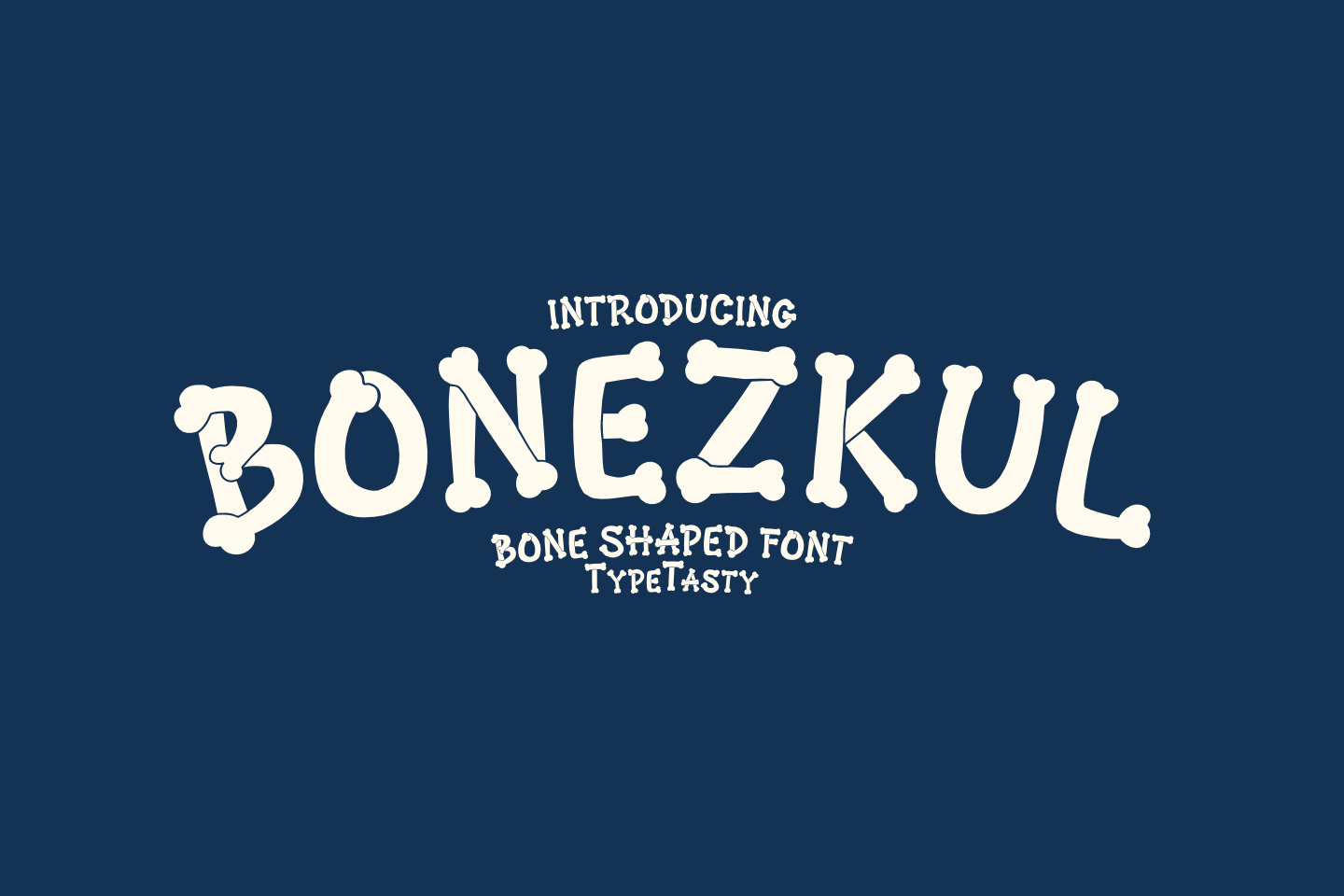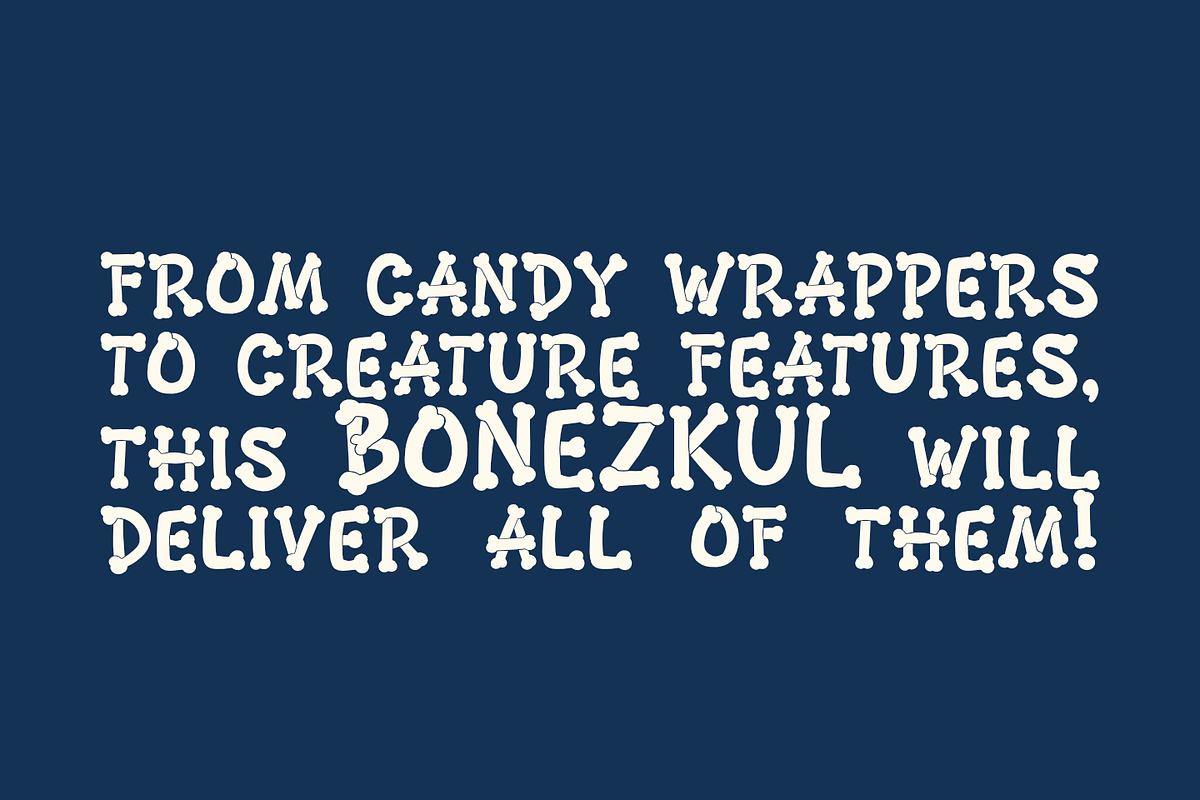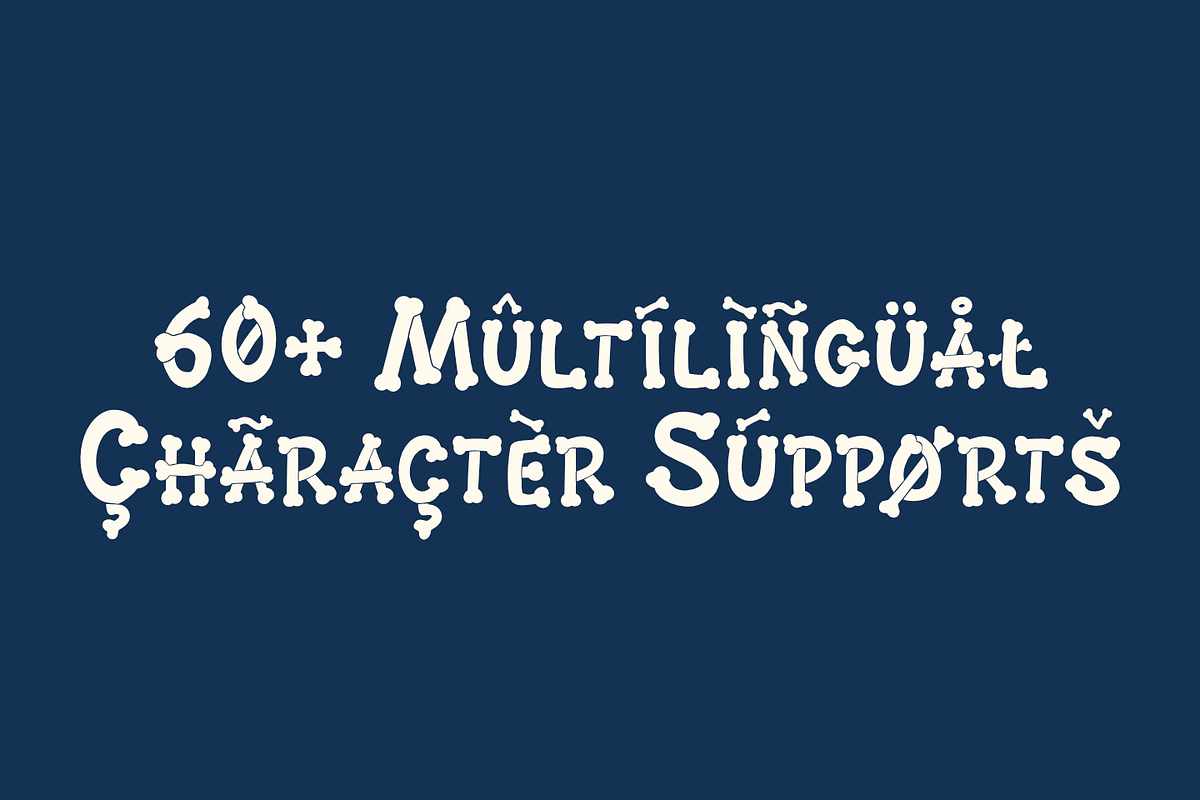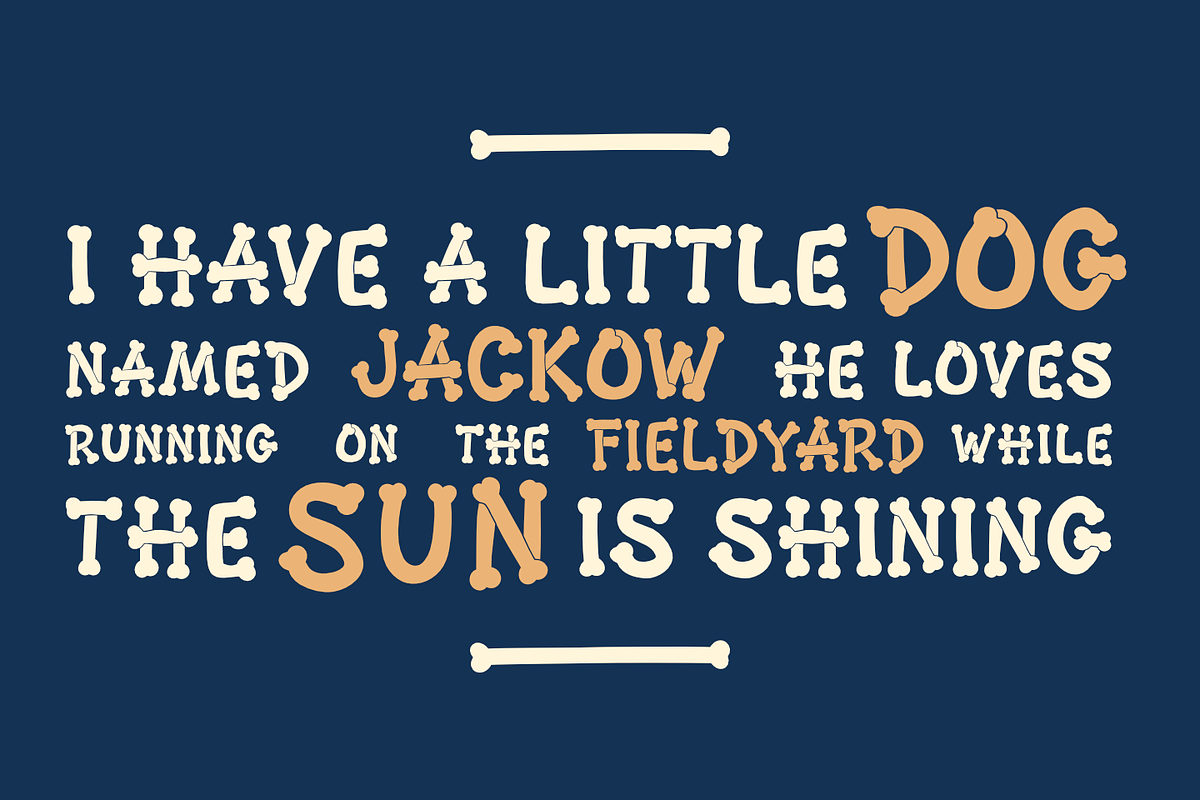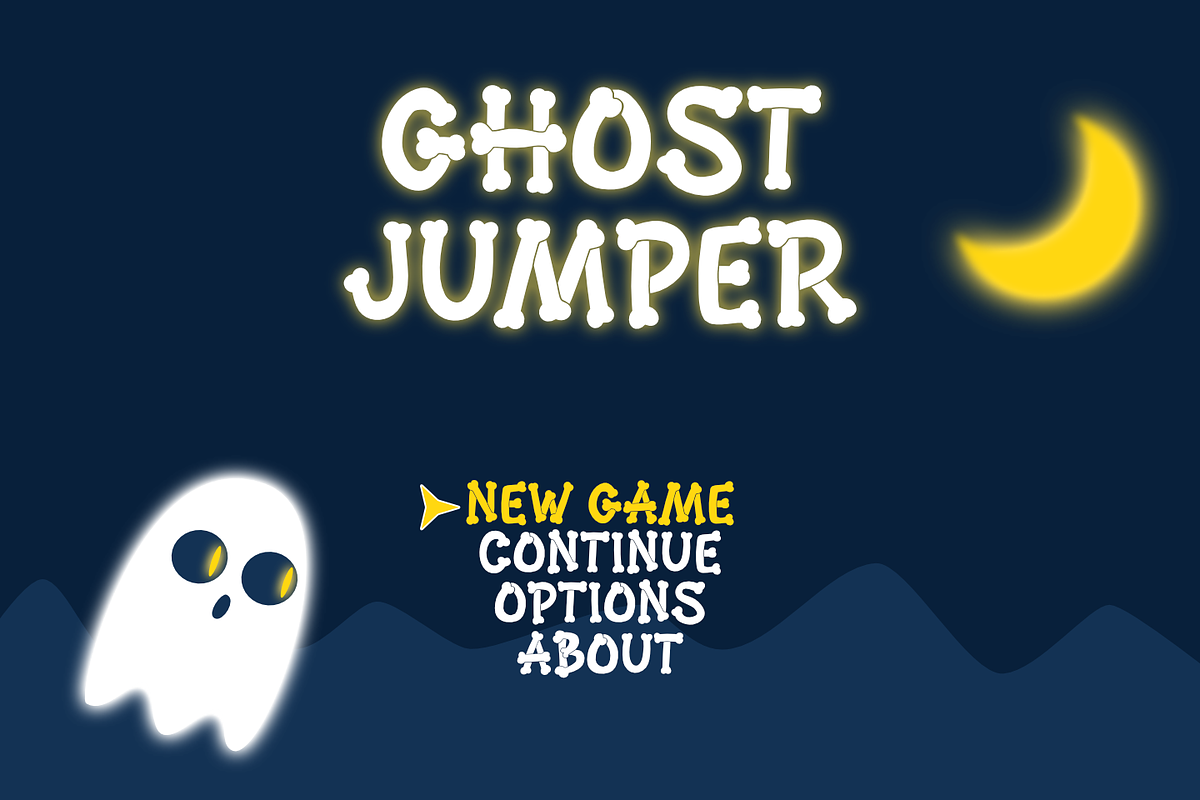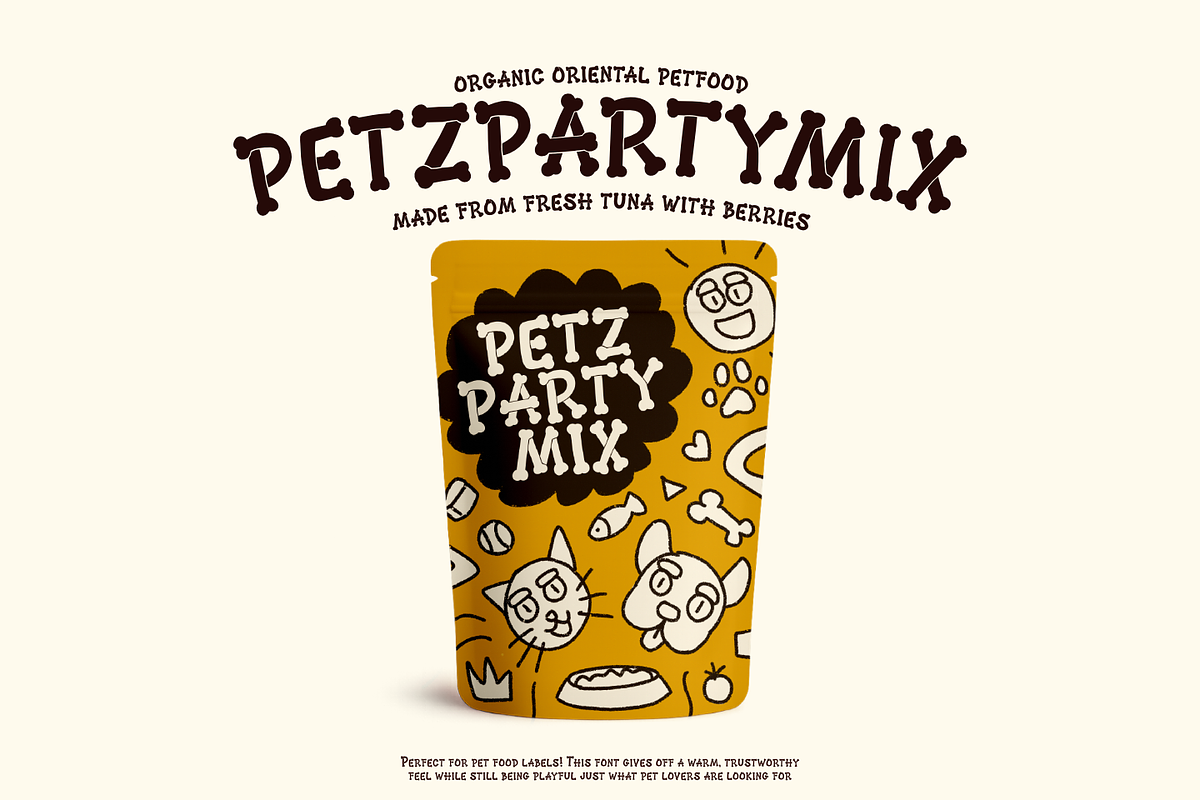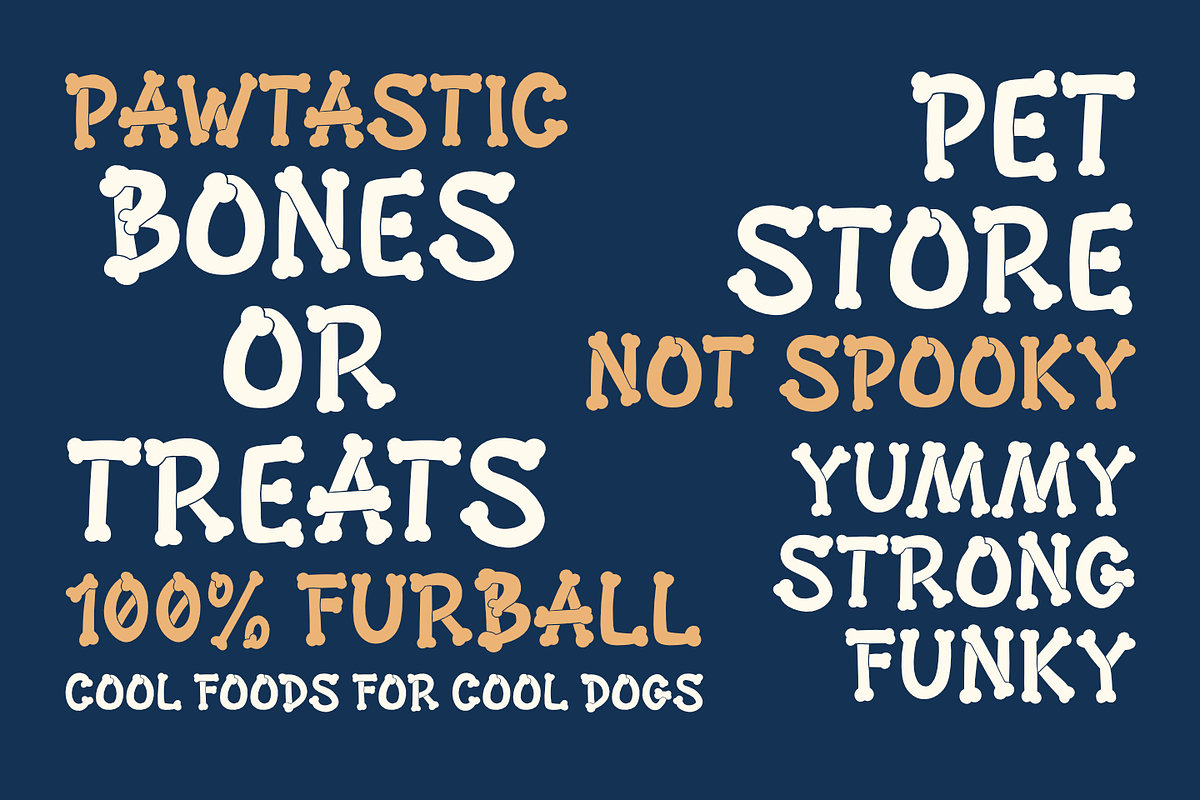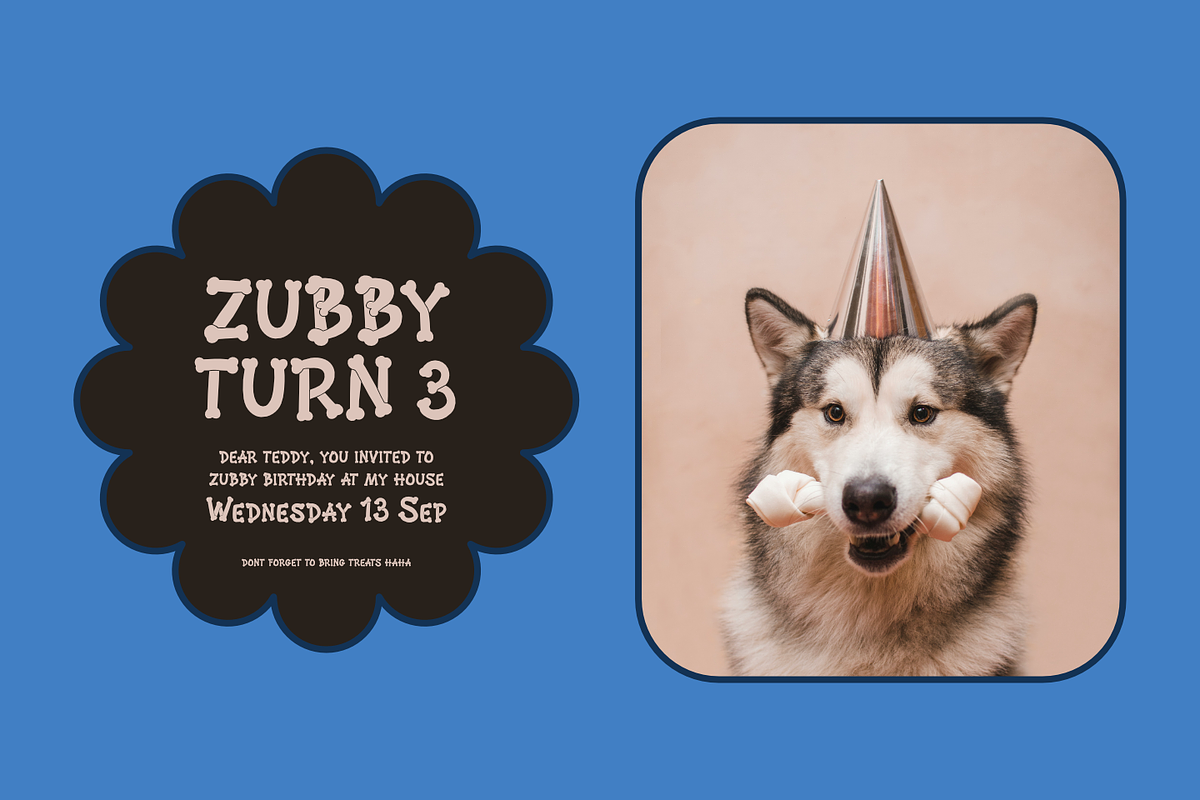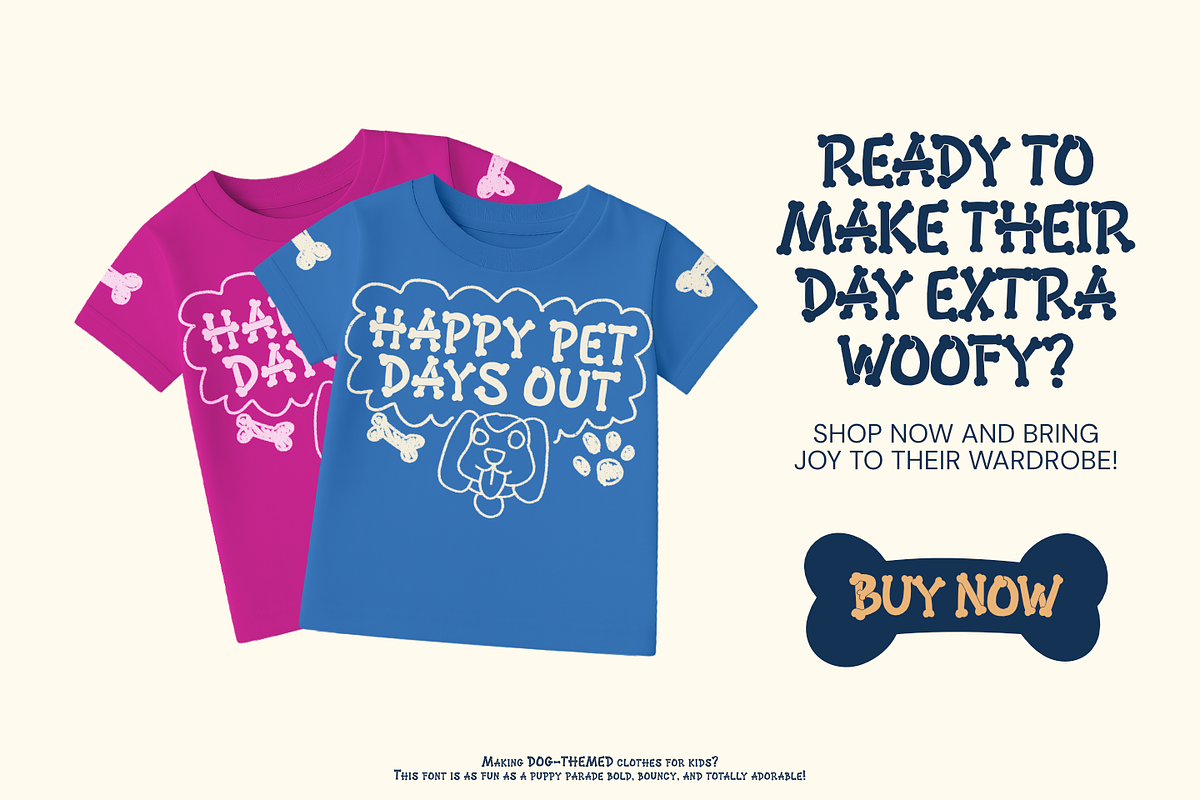
BONEZKUL – Bone Shaped Font
BONEZKUL is a playful bone-shaped display font perfect for Halloween, spooky themed events, and fun branding projects. With chunky, handcrafted letters made to resemble real bones, it’s a must-have for designers creating party invites, YouTube thumbnails, horror games, pet products, or seasonal social content. BONEZKUL is not just eye-catching—it’s loaded with personality, making it a fun and memorable choice for bold, quirky, and spooky design needs.
Best Use Cases: • Halloween and spooky-themed merchandise • Event posters and party invites • YouTube thumbnails for horror/gaming channels • Pet-related branding and signage • Children’s books and educational printables • Social media posts and seasonal campaigns
Dig into playful fright with BONEZKUL – the bone-shaped font that’s creepy, fun, and totally unforgettable! Whether you’re designing for Halloween, pet brands, or anything spooky and silly, this font adds a hauntingly hilarious twist that demands attention.
🦴 Bold Bone-Like Lettering Each character is carefully crafted to resemble real bones perfect for setting a spooky, playful tone in your designs.
👻 Kid-Friendly Yet Creepy Silly enough for children’s materials, spooky enough for Halloween events—BONEZKUL strikes a perfect balance.
🎃 Ideal for Seasonal Projects From haunted house flyers to pumpkin patch signs, this font brings your Halloween and fall designs to life.
📱 Optimized for Visual Impact Its chunky forms and high readability make it ideal for thumbnails, social posts, and print alike.
🐾 Versatile Use Great for dog treat packaging, vet-themed illustrations, or skeleton-themed party merch—BONEZKUL adapts to any quirky brand tone.